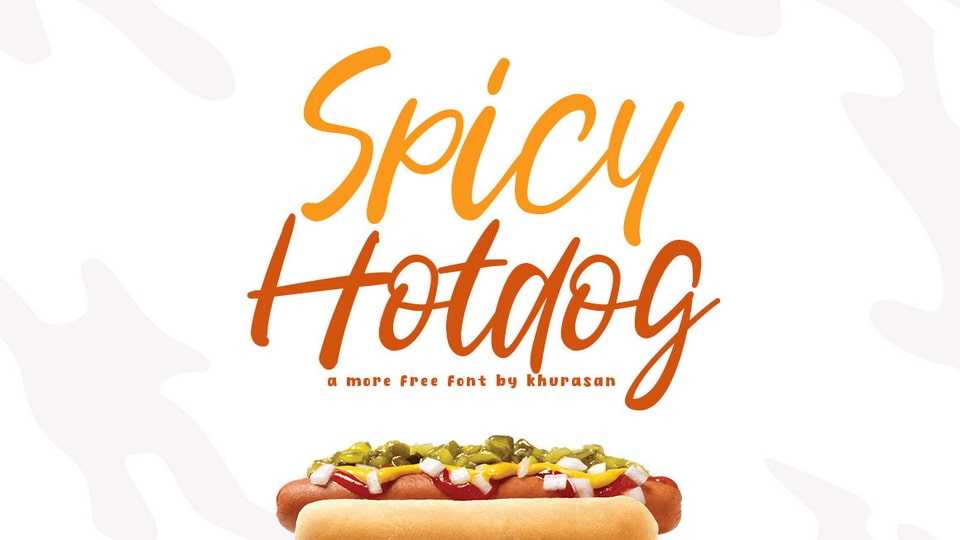
Download Spicy Hotdog font, a bouncy and carefree handwritten font that adds a delightful touch of playfulness to your designs. Spicy Hotdog font features an dynamic and energetic flow, with each letter radiating a sense of lively movement.